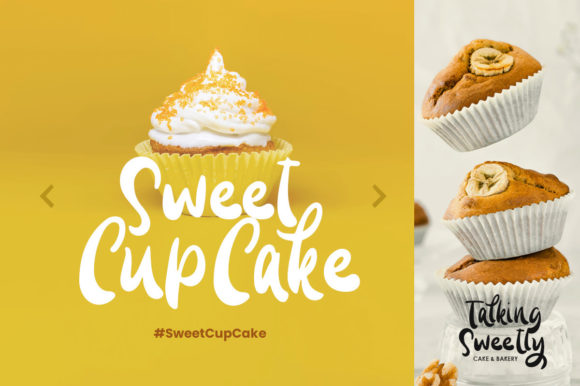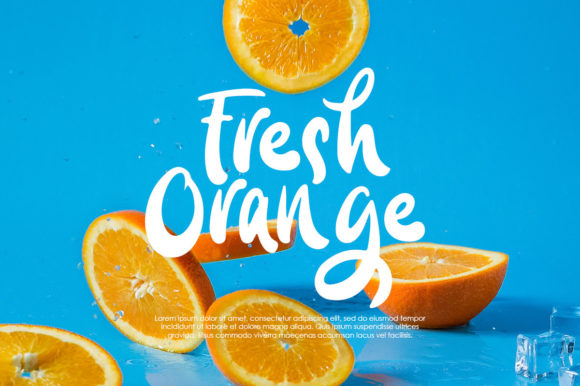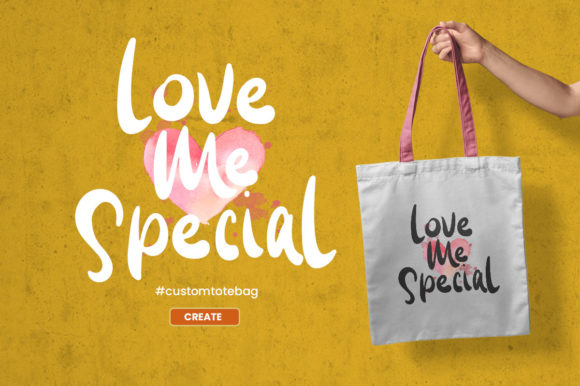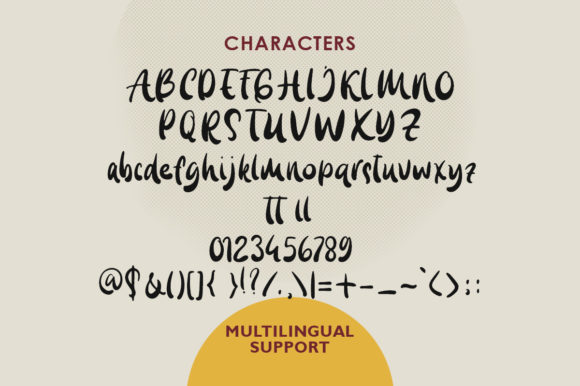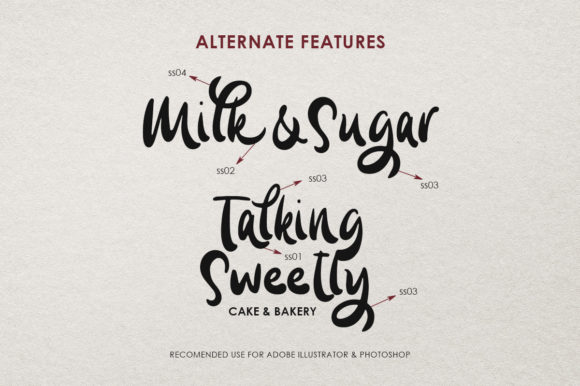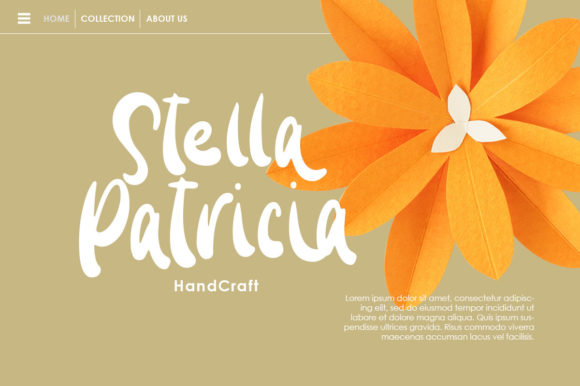
Introducing Blue Carousel Font: Elevate Your Designs with a Cool, Adaptable, and Friendly Display Font
Are you on the hunt for a font that can instantly elevate your designs and make them stand out from the crowd? Look no further than Blue Carousel Font! This stunning display font is not only visually appealing but also highly adaptable and friendly, making it perfect for designers and crafters alike. In this article, we’ll dive into the features and benefits of Blue Carousel Font, and explore how you can use it to take your designs to the next level.
What is Blue Carousel Font?
Blue Carousel Font is a modern display font that boasts a unique and captivating style. Its cool and friendly aesthetic makes it perfect for a wide range of design projects, from branding and advertising to packaging and digital media. The font is designed to be highly versatile, allowing you to use it in various contexts and applications.
One of the standout features of Blue Carousel Font is its PUA (Private Use Area) encoding. This means that you can access all glyphs and swashes with ease, giving you complete creative control over your designs. With PUA encoding, you can effortlessly navigate through the font’s extensive character set and select the perfect glyphs to suit your design needs.
Key Features of Blue Carousel Font
- Cool and Adaptable Design: Blue Carousel Font features a unique and captivating style that’s perfect for making a statement.
- PUA Encoded: Access all glyphs and swashes with ease, giving you complete creative control.
- Highly Versatile: Suitable for a wide range of design projects, from branding and advertising to packaging and digital media.
- Easy to Use: Compatible with most design software, making it easy to integrate into your workflow.
How to Use Blue Carousel Font in Your Designs
Blue Carousel Font is incredibly easy to use, and its versatility makes it suitable for a wide range of design applications. Here are a few ideas to get you started:
- Branding and Logo Design: Use Blue Carousel Font to create stunning logos and brand identities that make a lasting impression.
- Advertising and Marketing: Add a touch of elegance and sophistication to your ad campaigns with Blue Carousel Font.
- Packaging Design: Elevate your packaging designs with Blue Carousel Font’s unique and captivating style.
- Digital Media: Use Blue Carousel Font to create engaging and visually appealing digital content, such as social media graphics and website headers.
Tips and Tricks for Getting the Most Out of Blue Carousel Font
To get the most out of Blue Carousel Font, here are a few tips and tricks to keep in mind:
- Experiment with Different Glyphs: With PUA encoding, you have access to a wide range of glyphs and swashes. Experiment with different combinations to find the perfect look for your design.
- Play with Font Sizes and Colors: Blue Carousel Font looks great in a variety of sizes and colors. Don’t be afraid to experiment and find the perfect combination for your design.
- Pair it with Other Fonts: Blue Carousel Font pairs well with a range of other fonts. Try combining it with a sans-serif font for a bold and modern look.
Blue Carousel Font is a game-changing display font that’s perfect for designers and crafters looking to elevate their designs. With its cool and adaptable style, PUA encoding, and high versatility, it’s an excellent addition to any design toolkit. Whether you’re working on branding, advertising, packaging, or digital media, Blue Carousel Font is sure to make a lasting impression. So why wait? Download Blue Carousel Font today and start creating stunning designs that leave a lasting impact!